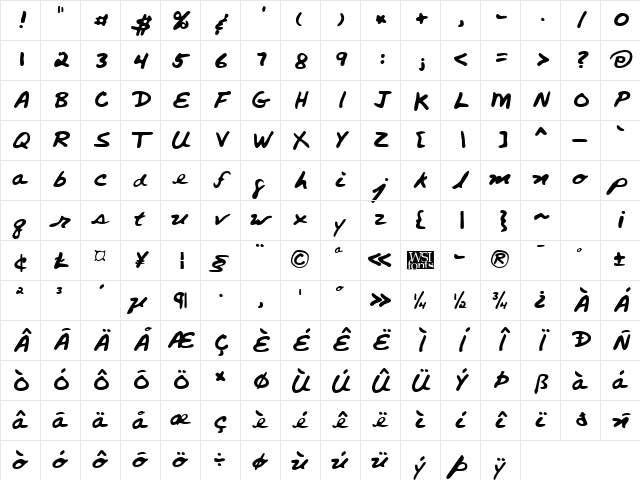
SergesHand Regular Free Font
SergesHand Regular
Design Context for SergesHand
SergesHand flows with the natural rhythm of handwritten lettering, making it ideal for designs that call for warmth and personal expression.
Font Pairing: Combine SergesHand with a simple geometric sans for maximum contrast - the tension between flowing curves and clean structure is a classic typographic pairing.
Pro Tip: Use SergesHand for short runs of text - names, titles, or taglines. Extended body copy in script faces tires the eye quickly.